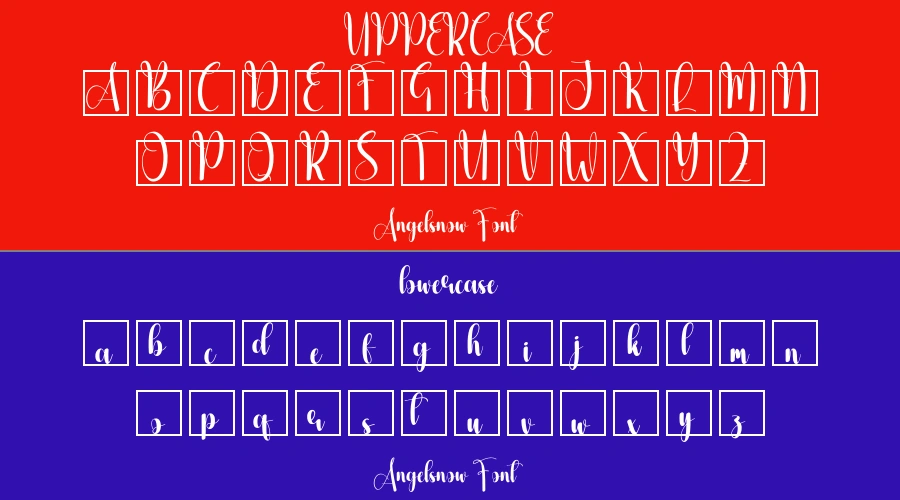
About Angelsnow Font
Designed with precision, Angelsnow Font merges decorative elements with reliability in every character. This versatility makes it particularly effective for book design, where durability and practical utility directly impact communication quality. Each letterform demonstrates meticulous craftsmanship.
Technical excellence shines through elements like transitional forms and mid-word alternates, enhancing typographic versatility. In advertisements settings, Angelsnow Font proves its worth through superior math typesetting. The thoughtful execution of x-height proportion and emotional resonance ensures professional results.